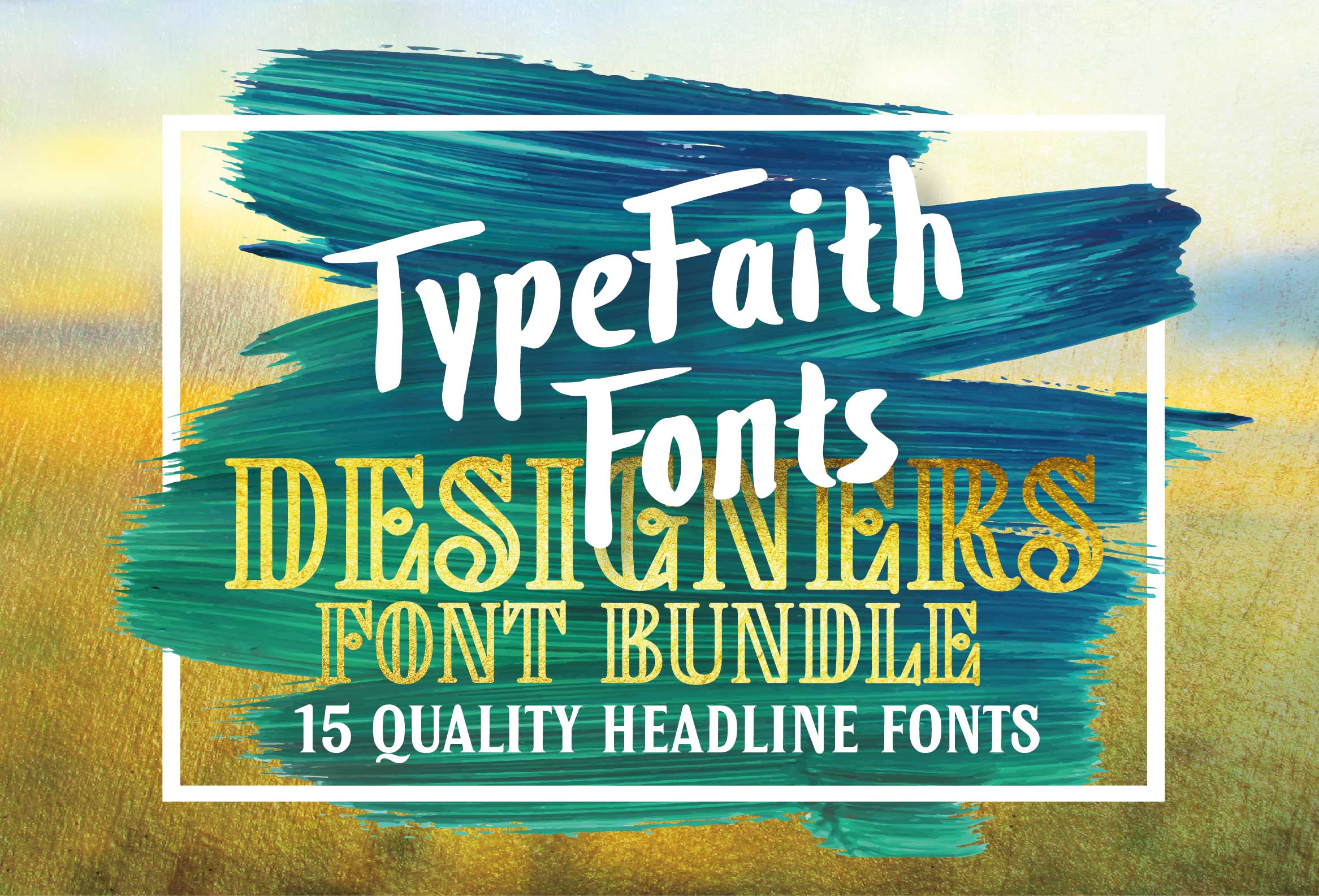
The right font can transform a good design into a great design.
Free fonts are the usual choice but sometimes the font you opt for is so overused, it can dilute your brand image. Moreover, finding the right type of font is super tedious.
Here’s your smart solution, a set of 9 unique fonts skillfully crafted to add that extra punch to your creative design. This bundle includes –
- 1 simple hand drawn font
- 2 hand drawn sketch fonts
- 1 woodblock type based font
- 1 hand drawn brush font
- 1 vintage retro styled font
- 1 firm script font with lovely swashes & more
Check out more about these unique fonts from TypeFaith Fonts
1. Toxa Ink is a simple hand-drawn typeface with one set of alternates for all capitals and a set of a ligature to replace double characters. To access the alternate letters of this font, you will need software with Open Type features or a glyphs panel (Adobe Photoshop CC 2015, Adobe Illustrator, Adobe Indesign). It is an elegant font that can be used to create great designs in Illustrator.
2. Donker Caps is a woodblock type based font. It’s an all-caps font with round and sharp shapes. It is perfect if you wish to give your design a clean and quirky twist.
3. Bakersville is a package of 2 hand drawn sketch fonts. The fonts can be used especially for food packaging, menus, etc. and gives your product the authentic hand made look.
4. Blackflower Typeface is a standard hand drawn brush font. It’s brutal, rough and messy, with ligatures to avoid twice the same glyph. You can use it for labeling, clothing, books, magazines and album covers.
5. Goldpicker is a vintage retro styled typeface with a western look and feel. It refers to the American wood block type of the previous century. Goldpicker is very useful for covers, posters, labels, t-shirt and logo. Each font comes with a set of alternatives for characters C G Q S V W & and a set for endings for the characters A C E K L M N O R V W X Y Z. You can access the individual characters using the Opentype option or the glyph panel. Goldpicker comes in three layering fonts. The family will be expanded in the future. Buyers will be informed and will get the newly developed font files for free as an upgrade.
6. Picastro is a firm script font with lovely swashes. It is a characteristic font with a retro feel. It contains a full set of ligatures, alternatives, swashes and special characters to end. The OpenType layout features can be used to position or substitute glyphs.
7. Birchwood is a package of 2 hand drawn fonts. The fonts are very useable for restaurant menus, bakery hoardings or websites, etc.
8. SalamacaTF is fun to use typeface. With the OpenType options or the glyphs palette, you make your special typos. The font is based on the wall typography of the city of Salamanca.
9. Moonface Script is a flowing script with lovely swashes. It is based on the 20th Century Packaging typo. Moonface Script is a particular font with a retro feel. It contains a full set of ligatures, alternatives, swashes and special characters to end.